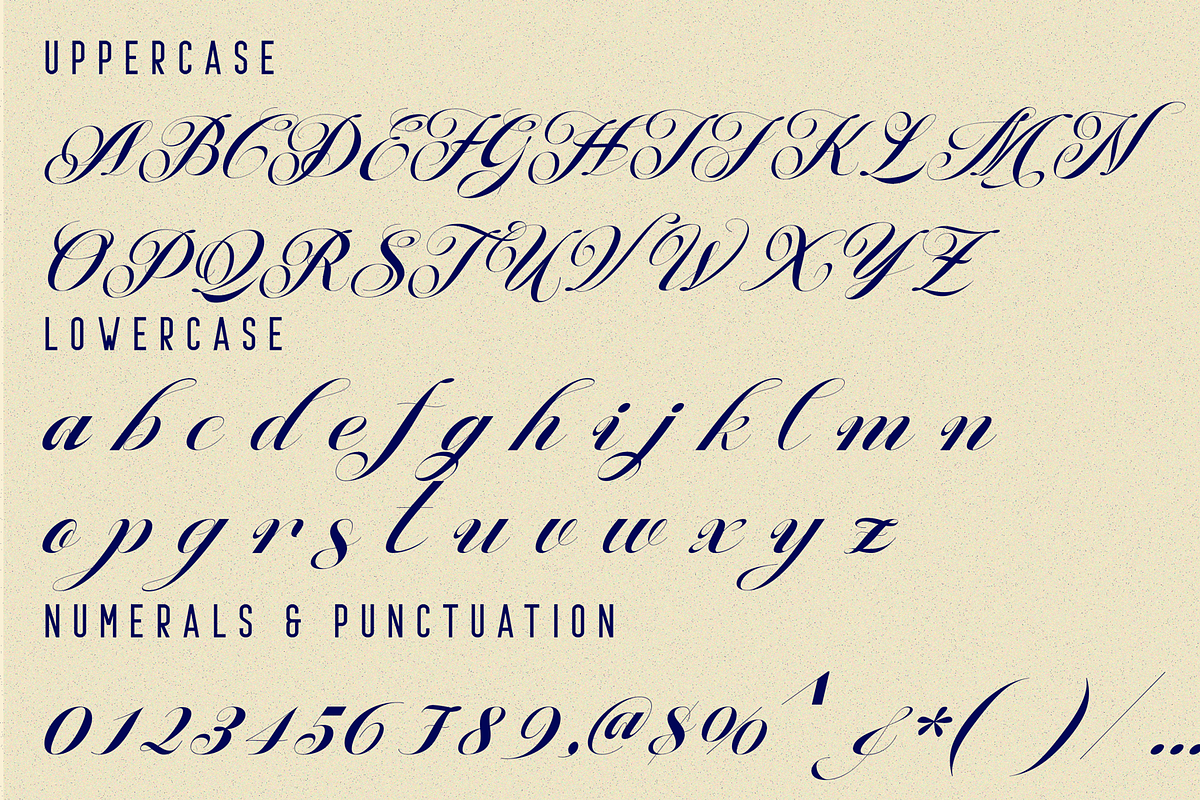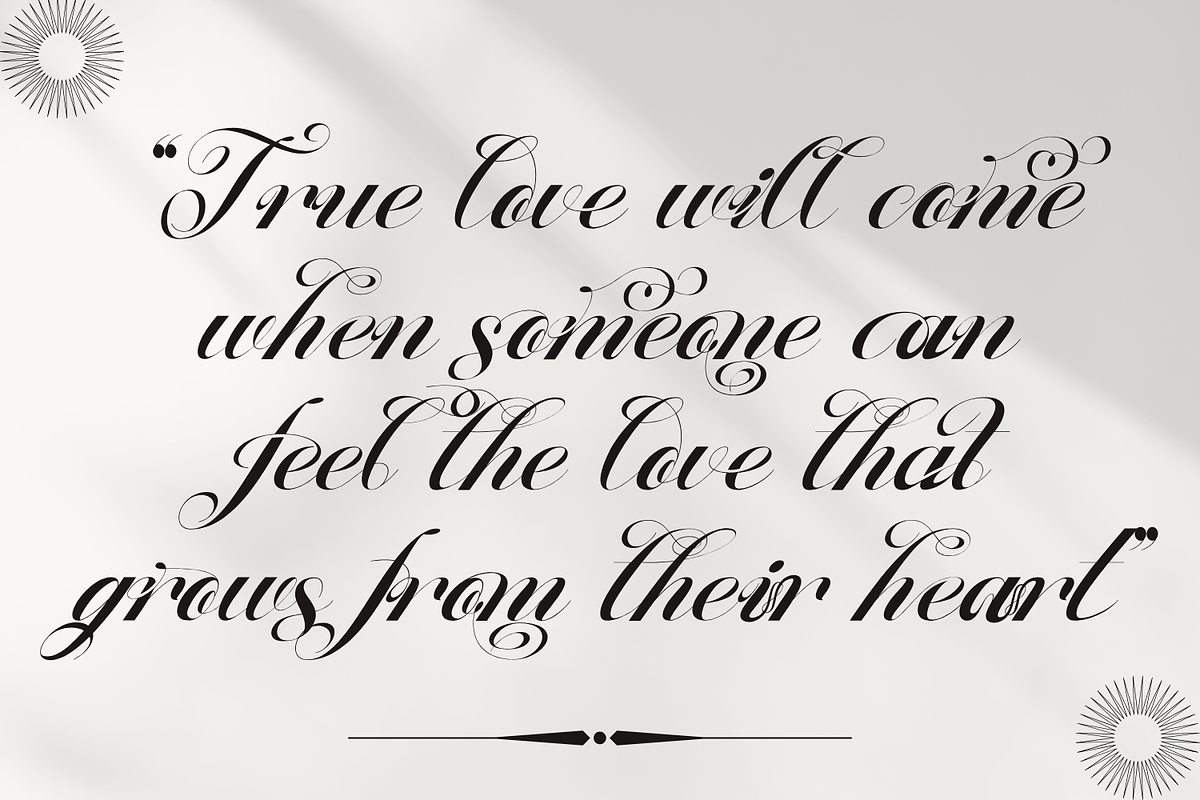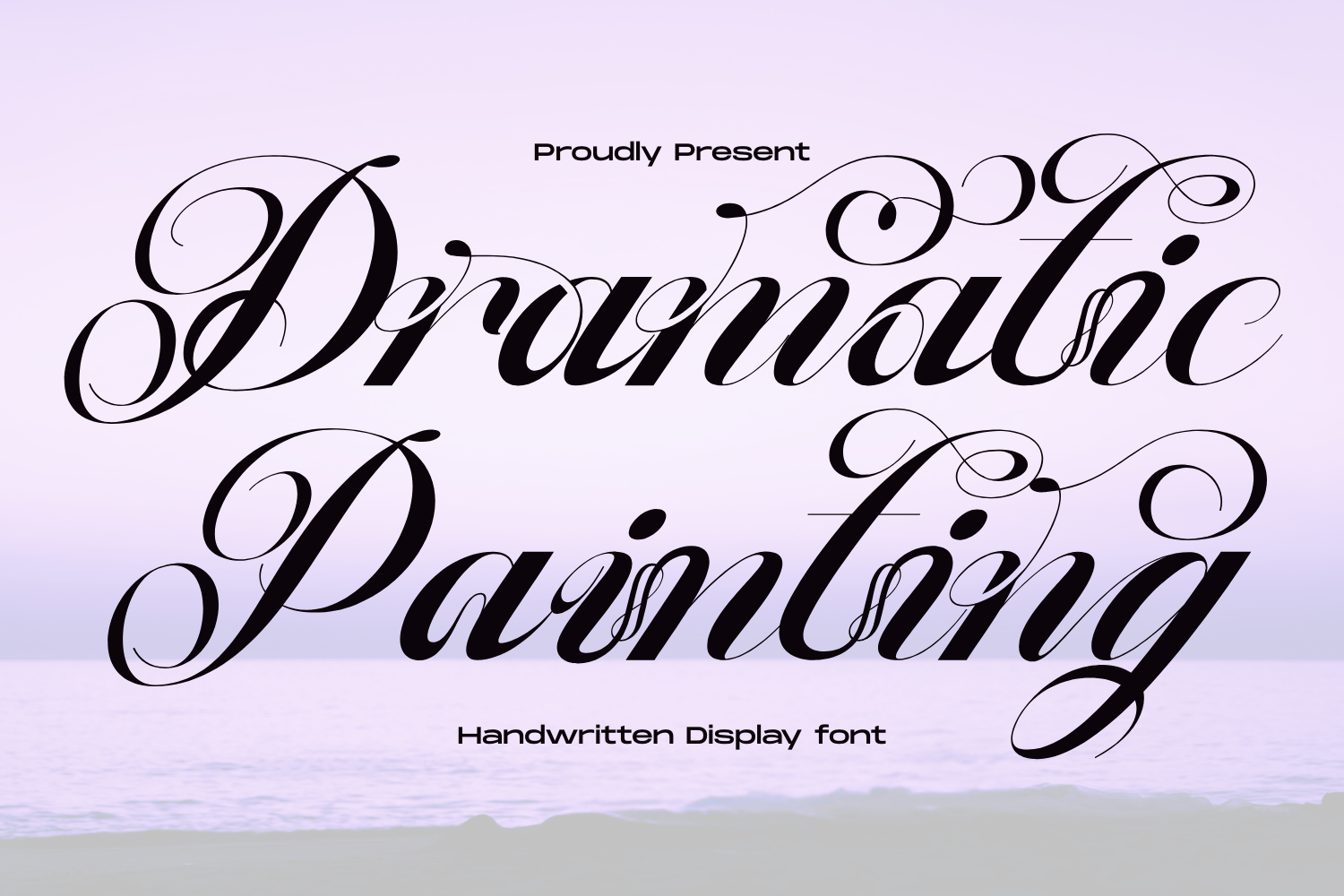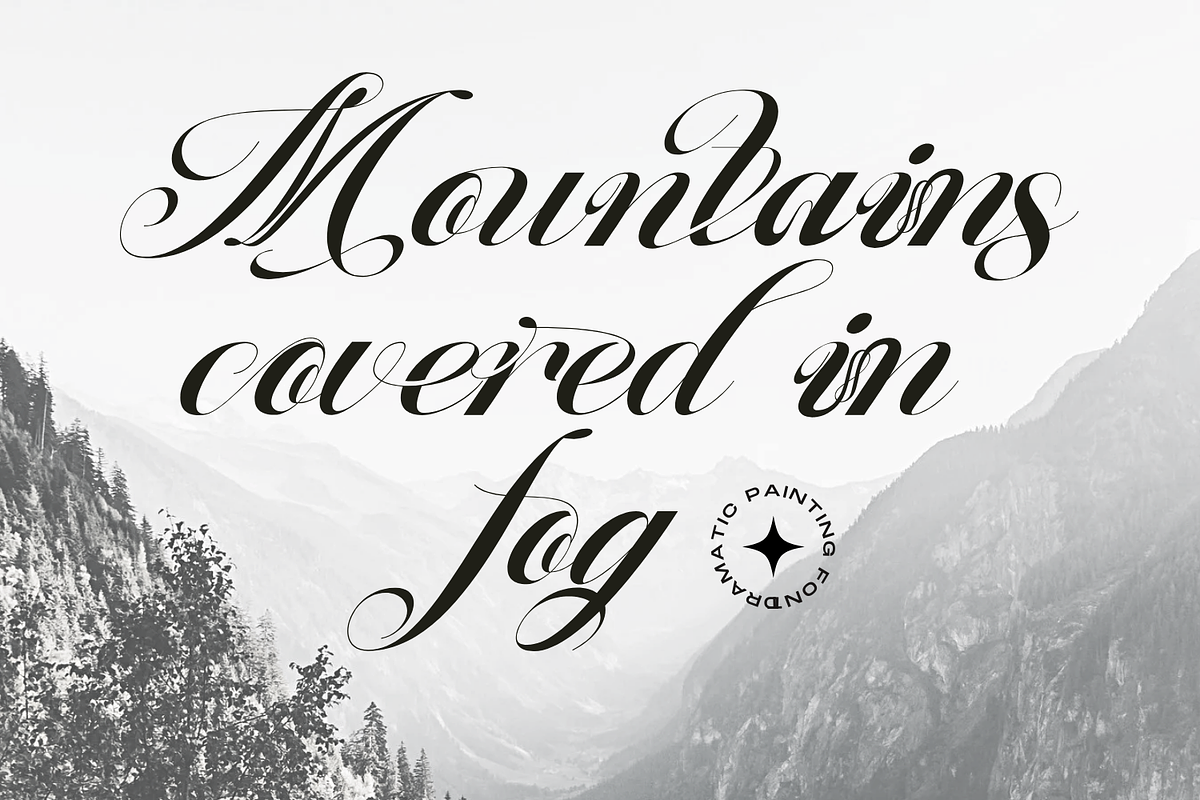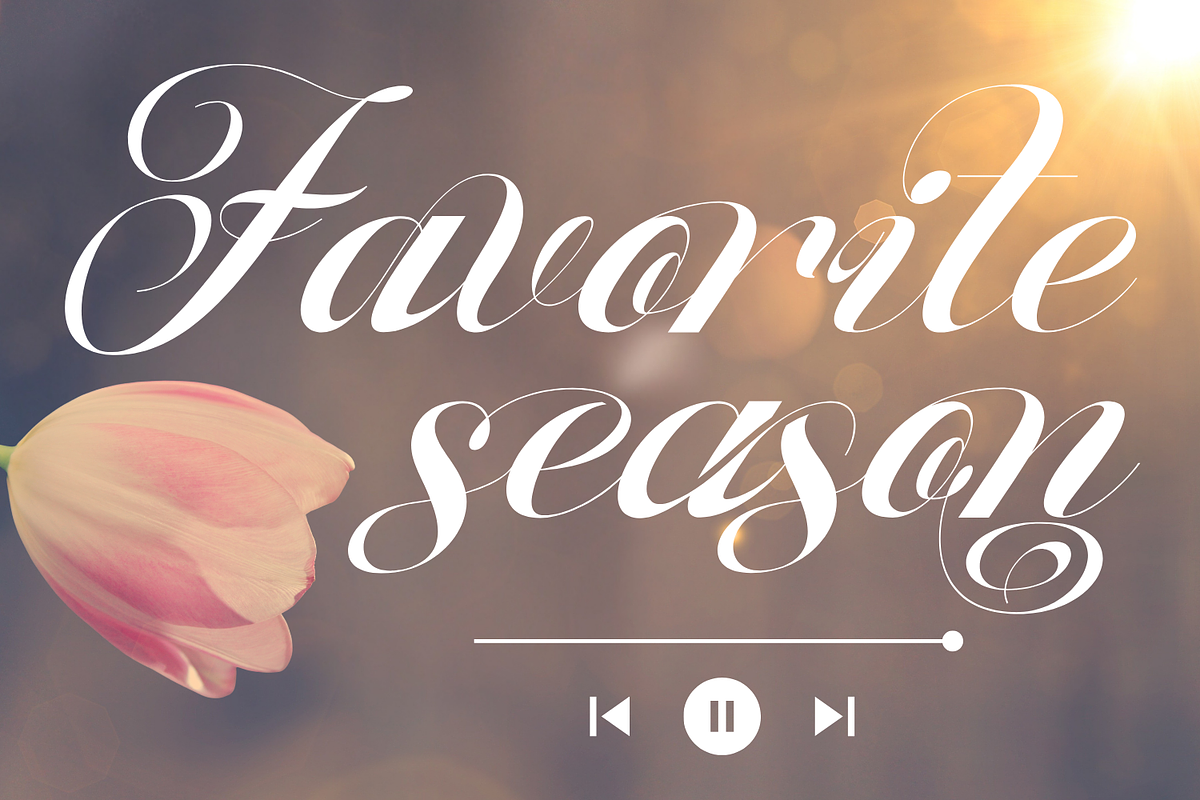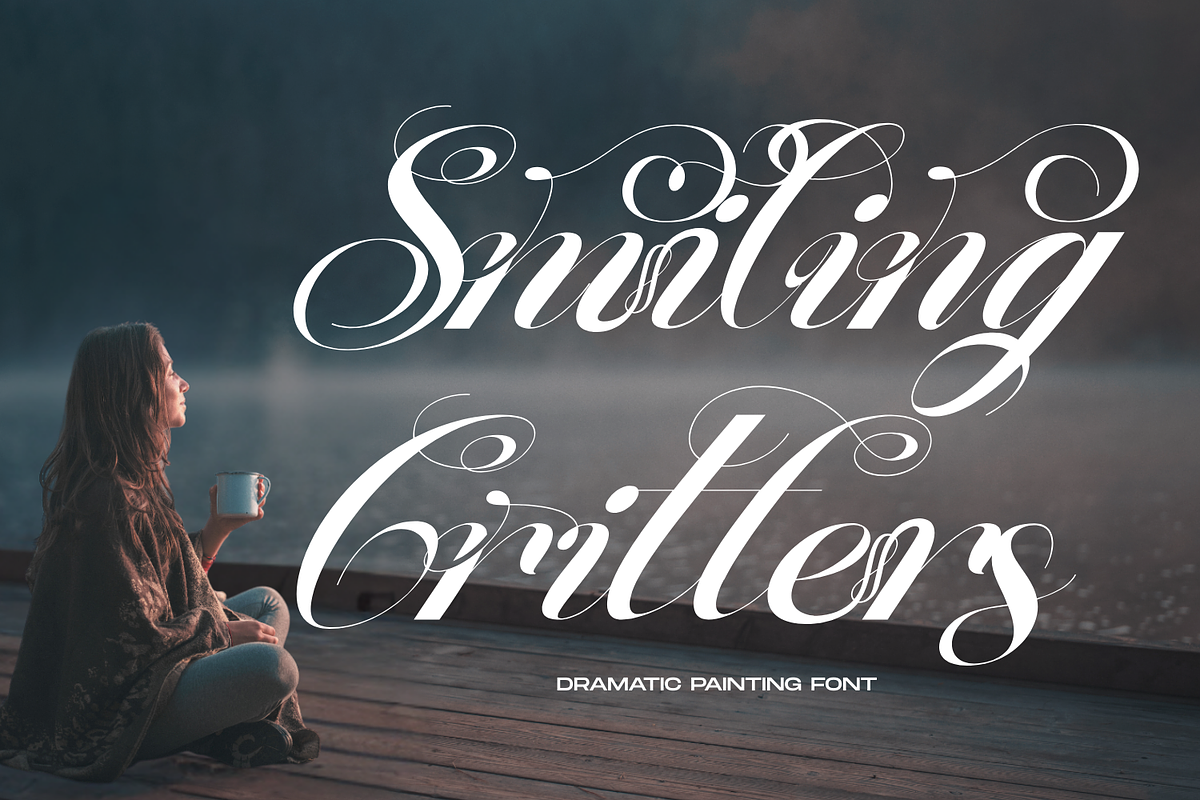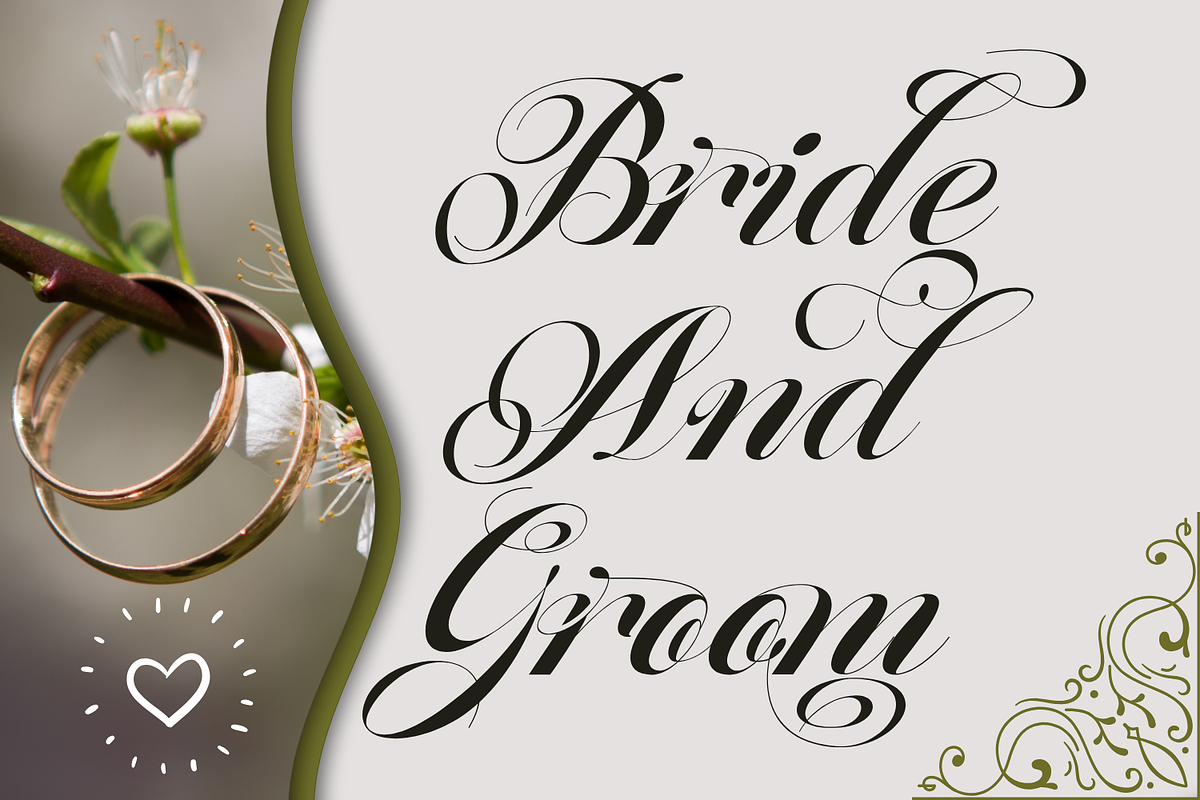
Dramatic Painting - Calligraphy Font
Dramatic Painting - Calligraphy Font - An Elegant Calligraphy Display Font, an exquisite Handwritten Display font that exudes elegance and charm. With its graceful curves, delicate swashes, and natural handwritten feel, Dramatic Painting brings a touch of sophistication and personality to your designs. This font is perfect for creating stunning wedding invitations, refined logos, captivating headlines, personal branding, beautiful quotes, packaging, and any project needing a blend of elegance and handwritten warmth.
- Uppercase & Lowercase Letters: A complete set of beautifully flowing characters. ~100 Special Ligatures: Enhance the natural script feel with numerous unique ligatures designed for seamless connections and added flair.
- Numerals & Punctuation: A full set of numbers and punctuation marks, elegantly styled to match the font.
- Accented Characters: Extensive multilingual support with a wide range of accented characters.
About 100 ligatures combined with Stylistic Alternates Font:
ac ad al an ar as at au av be ca ce ch co ct de di ea ec ed ee el em en ep er es et fe fo fr ge ha he hi ho ie ic il in io ir is it ju ke la le li ll lo ly ma me mi nc nd ne ng no nt ns oc of om on oo op or ot ou ow pa pr ra rd re ri ro rs rt se sh si so ss st ta te th ti to tr tt um un ur ve wi wo